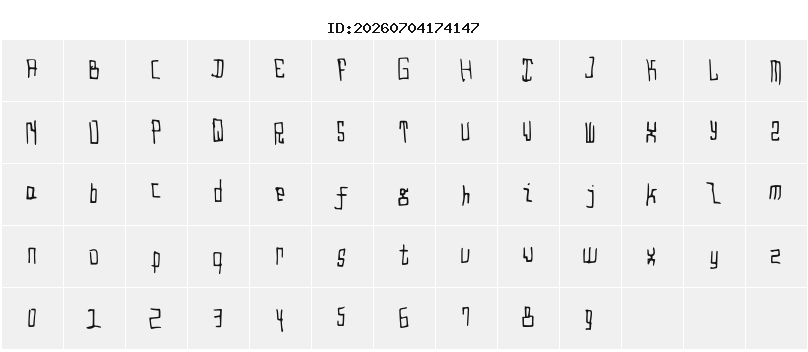
Droido Medium Preview
• Font Name: Droido Medium
• Full Font Name: Droido Medium
• PostScript Name: Droido-Medium
About Droido Medium.otf
Droido Medium.otf is a modern, elegant sans-serif font designed for ultimate readability and visual harmony. Perfect for branding, headlines, web design, and print materials.